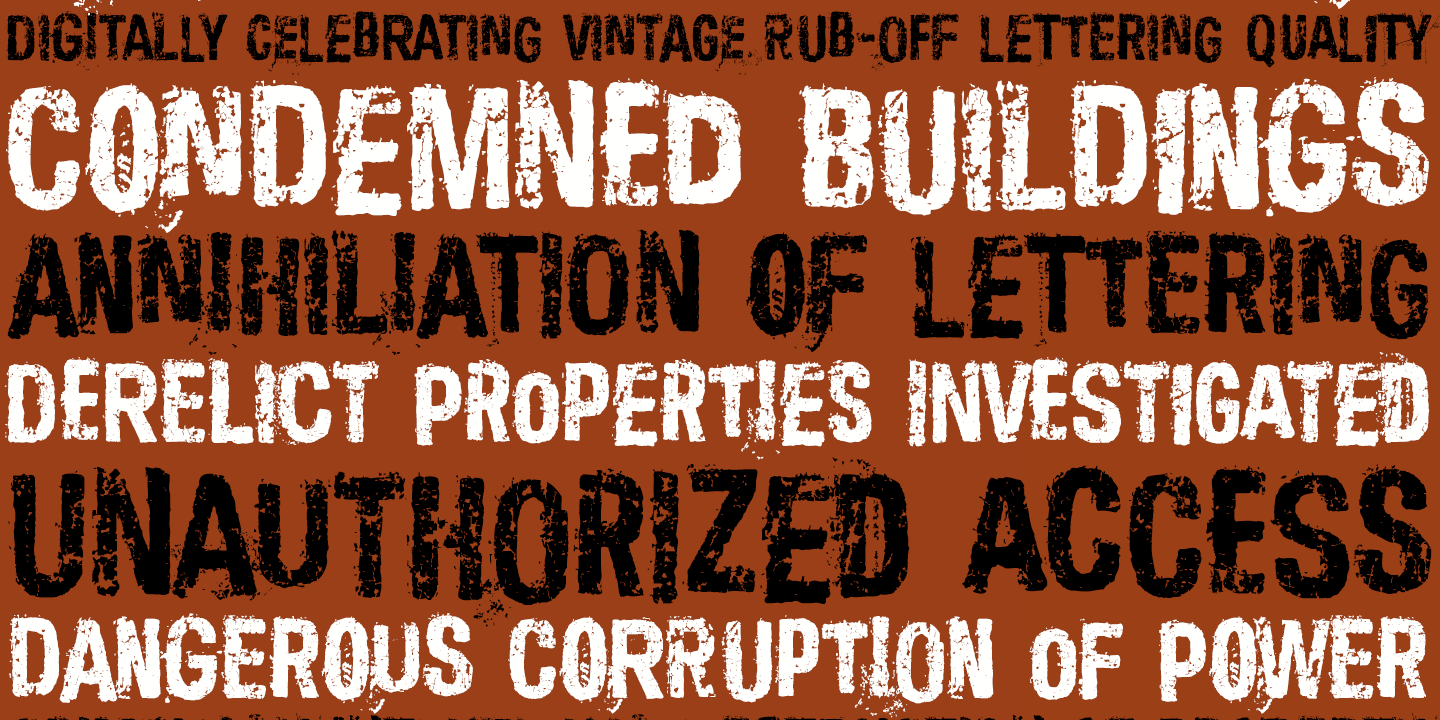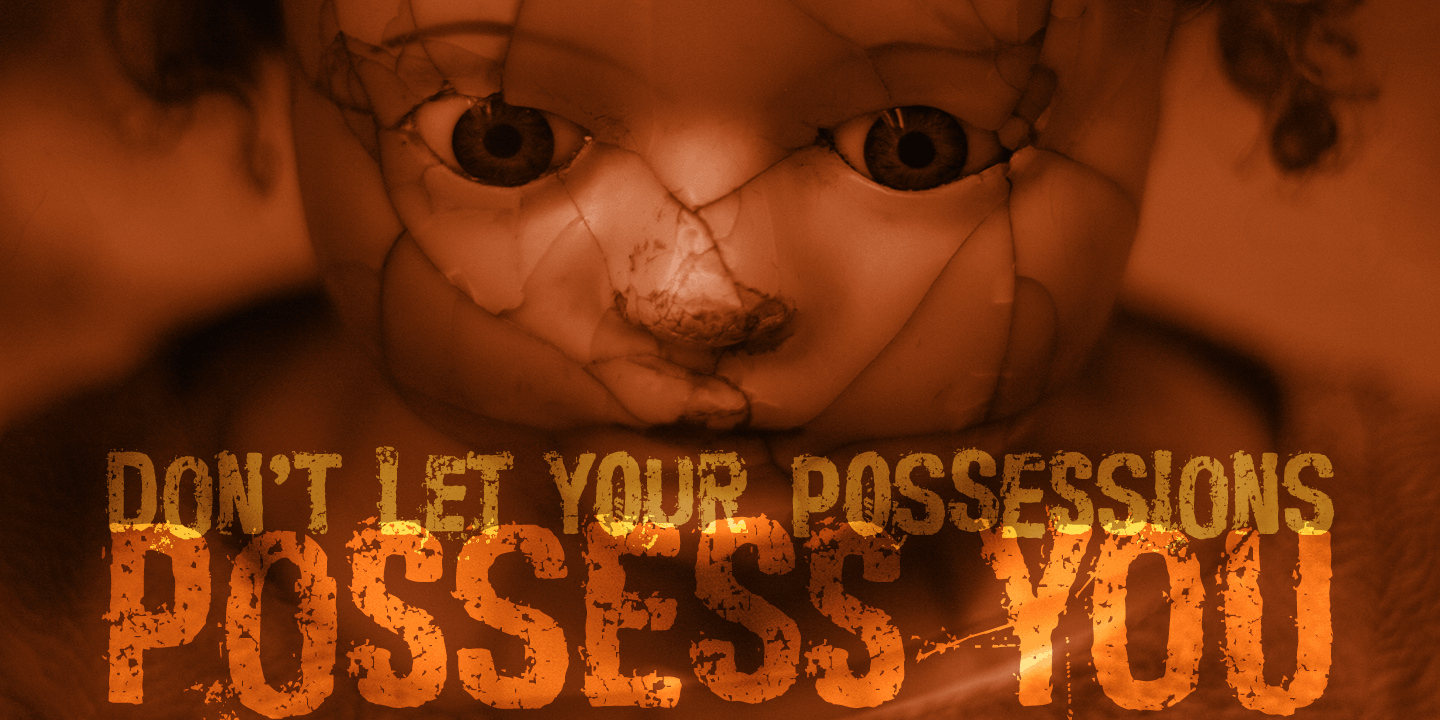
Obliterate
Font Family by Grype
Obliterate is a self destructing sans-serif typeface created from old rub off typography sheets brought back from the brink of becoming landfill fodder. It contains four sets of capitals and one alternate set of numerals for a randomized look.
633 glyphs - including Capitals, Alternate Capitals (in lowercase slots), Numerals, Punctuation, two additional alternate Capitals sets and an extensive character set that covers multilingual support of latin based languages. (see the last graphic for a preview of the characters included)
Ligatures Feature that auto-switches between Capitals & three other alternate Capitals glyphsets, as well as Numerals and Alternate Numerals for visual randomness. The ligatures feature will be automatically enabled for most with opentype compatibility, otherwise you can access the alternate glyphs via a Glyphs panel. (try typing below to watch it alternate between sets)
Here's why Obliterate is for you:
- You're into legible but distressed typestyles that imitate a random looking distress to it
- You're a fan of the band Inner Circle, whom the font was originally a tribute to
- You're a fan of old Letraset/Transfertype rub off lettering
- You're designing a modern horror movie poster and want a typeface with some tooth to it
- You just like to collect quality fonts to add to your design arsenal